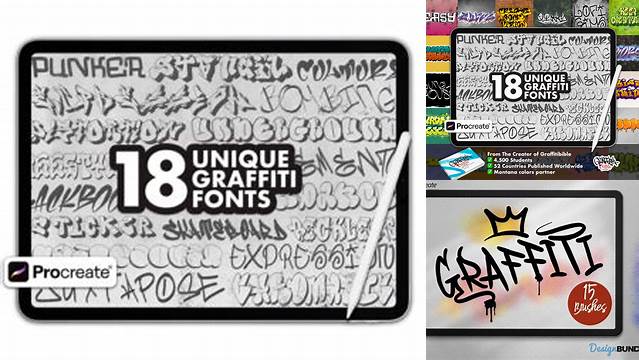
Free Graffiti Fonts For Procreate: Unleash Your Creativity
Hey guys! Ever wanted to give your Procreate art that raw, urban edge? One of the coolest ways to do that is by using graffiti fonts. The best part? There are tons of amazing and free options out there that you can snag and start using right away. In this article, we're diving deep into the world of graffiti fonts for Procreate. We'll cover everything from where to find them to how to use them to really make your artwork pop. Let's get started!
Finding Free Graffiti Fonts for Procreate
Finding free graffiti fonts for Procreate doesn't have to be a daunting task. There are several reputable websites and online resources where you can discover a wide variety of styles, from classic tag fonts to more elaborate and artistic designs. Start by exploring popular font repositories like DaFont, Fontspace, and Google Fonts. These platforms offer extensive collections of fonts, many of which are available for free personal or commercial use. When browsing, be sure to use relevant keywords such as "graffiti," "urban," or "street art" to narrow down your search. Additionally, consider checking out design communities and forums where artists often share their favorite free fonts and resources. Remember to always review the licensing terms before using any font to ensure compliance with the author's usage guidelines. With a little bit of research and exploration, you can easily find a diverse selection of free graffiti fonts to enhance your Procreate artwork.
Using Graffiti Fonts to Create Digital Art in Procreate
Okay, you've got your graffiti font installed in Procreate – now what? Time to get creative! Start by experimenting with different colors and sizes to see what looks best for your project. Don't be afraid to layer fonts on top of each other or add effects like shadows and outlines to give your text more depth. Try using different blend modes to create unique textures and visual effects. Also, consider incorporating other elements of graffiti art, like drips, splatters, and tags, to enhance the overall design. Remember, graffiti is all about self-expression, so don't be afraid to break the rules and experiment with unconventional techniques. Have fun and let your imagination run wild!
Best Free Graffiti Fonts for Procreate in 2024
Staying up-to-date with the latest trends in graffiti fonts is essential for creating cutting-edge digital art. In 2024, several standout free fonts have emerged as popular choices among Procreate artists. Some notable options include "Urban Decay," a bold and gritty font perfect for creating authentic graffiti tags and slogans. Another popular choice is "Street Cred," a stylish and modern font that captures the essence of urban culture. For a more playful and whimsical look, consider using "Wildstyle," a funky and colorful font that adds a touch of personality to any design. Be sure to explore these and other free graffiti fonts to discover the perfect style for your next Procreate project. With the right font, you can take your digital art to the next level and create stunning visuals that capture the spirit of graffiti art.
Graffiti Font Generators for Procreate
If you're looking for a quick and easy way to create graffiti-style text in Procreate, consider using a graffiti font generator. These online tools allow you to input text and generate various graffiti designs automatically. While the results may not be as unique as creating your own graffiti art from scratch, they can be a great starting point for experimentation. Simply input your desired text, choose from a range of styles and effects, and download the generated image. You can then import the image into Procreate and use it as a base for further customization. Keep in mind that graffiti font generators are best used as a supplementary tool, rather than a replacement for original graffiti art. Experiment with different generators to find the one that best suits your needs, and don't be afraid to add your own personal touch to the generated designs.
Graffiti Lettering Tutorials for Procreate
Want to learn how to create your own graffiti lettering from scratch in Procreate? There are tons of awesome tutorials out there that can teach you the basics of graffiti art, from letter structure to shading techniques. Start by learning the fundamentals of graffiti lettering, such as letter forms, spacing, and composition. Then, experiment with different styles and techniques to develop your own unique style. Watch online tutorials and follow along with experienced graffiti artists to learn new skills and techniques. With practice and dedication, you can master the art of graffiti lettering and create stunning designs that reflect your individual style and creativity.
Creating Custom Graffiti Brushes for Procreate
One of the coolest ways to enhance your graffiti art in Procreate is by creating custom brushes. You can design brushes that mimic the look of spray paint, markers, and other graffiti tools. Start by experimenting with different brush settings, such as size, shape, texture, and spacing. Try using different brush textures to create unique effects, such as splatters, drips, and fades. You can also create brushes that mimic the look of different graffiti techniques, such as outlines, fills, and highlights. With a little experimentation, you can create a set of custom brushes that perfectly capture the essence of graffiti art and elevate your digital creations.
Combining Graffiti Fonts with Other Design Elements in Procreate
To create truly eye-catching graffiti art in Procreate, don't be afraid to combine graffiti fonts with other design elements. Try incorporating illustrations, photographs, and textures to create visually dynamic compositions. Experiment with different layering techniques to create depth and dimension. Use blending modes to create unique color combinations and visual effects. Also, consider adding hand-drawn elements to complement the graffiti fonts. By combining graffiti fonts with other design elements, you can create stunning works of art that capture the spirit of urban culture and showcase your unique creativity.
The History and Evolution of Graffiti Fonts